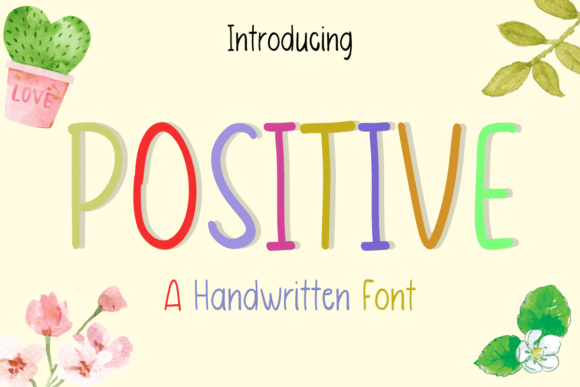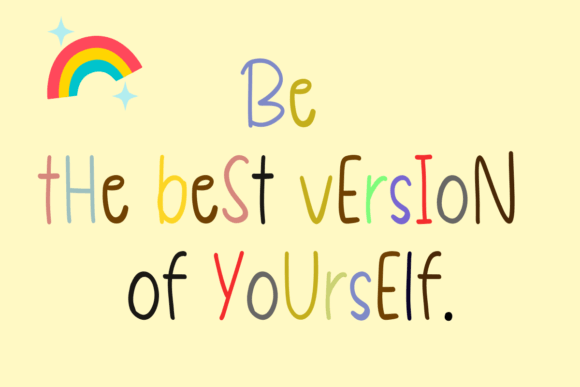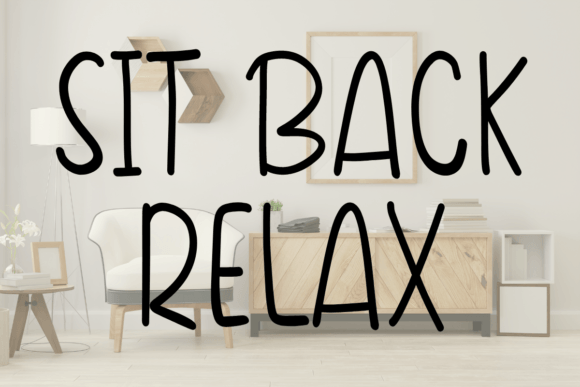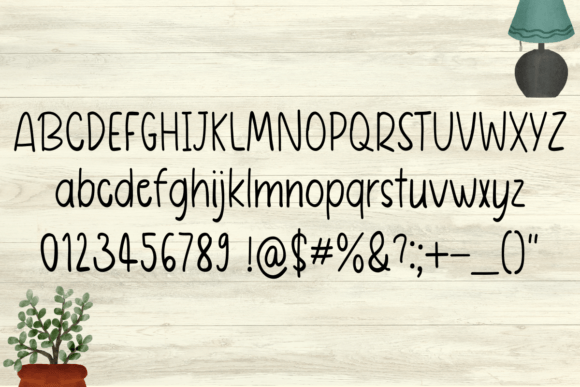
Positive Font
About Positive Font
“Positive is a cute and tall handwritten font that adds a playful touch to any design. With its adorable and tall letterforms, this font is a perfect match for various applications, including t-shirts, mugs, tote bags, pillowcases, and many more!
The charm of Positive lies in its cute and tall handwritten style, where each letter exudes a sense of playfulness and positivity. This font becomes a delightful choice for designers seeking a font that brings a cheerful and friendly vibe to their creative projects.
Whether you’re crafting designs for apparel or adding a cute touch to your merchandise, Positive stands out as a font that brightens up your creations. Its tall letterforms add a unique and eye-catching quality to your text.
Imagine Positive elevating your products, adding a cute and tall handwritten touch that resonates with positivity. Its adorable style becomes the defining element that sets your designs apart, creating a visual experience that resonates with joy and creativity.
As you explore the nuances of Positive, you’ll discover its potential to transform ordinary products into visually delightful expressions. Let it be the font that brings a touch of cuteness and positivity to your creative vision, making your designs stand out with a playful and friendly aesthetic. With Positive, every stroke becomes a brushstroke of happiness, making it a delightful asset for designers seeking a lively and versatile font.”